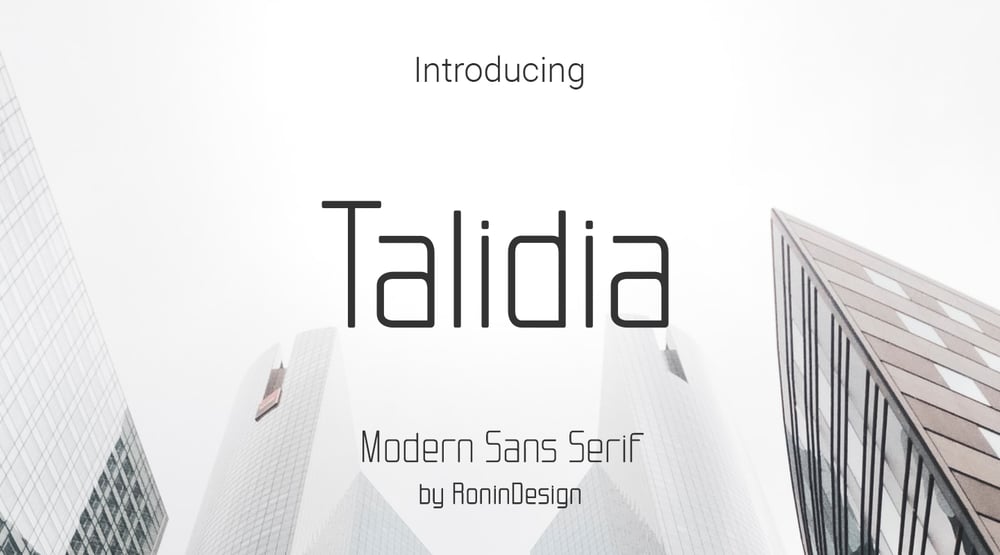
Talidia
Talidia font
Talidia Font Family was designed by RoninDesign and published by Ronin Design. Talidia contains 10 styles and family package options. Tlidia is a modern sans serif font, tall, thin and elegant. Talidia will work perfect for business card design, cover design, advertisement and many moreTalidia have 10 families will make great combination